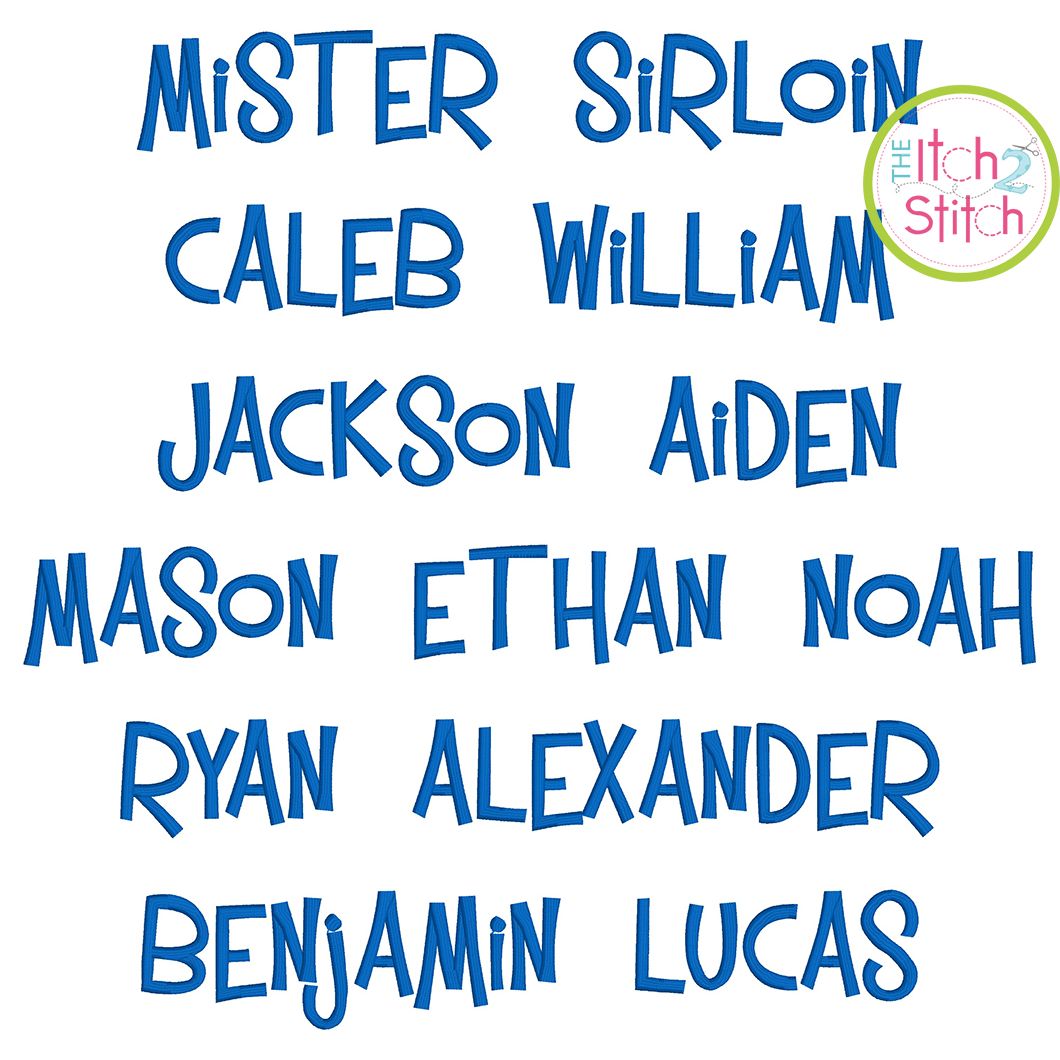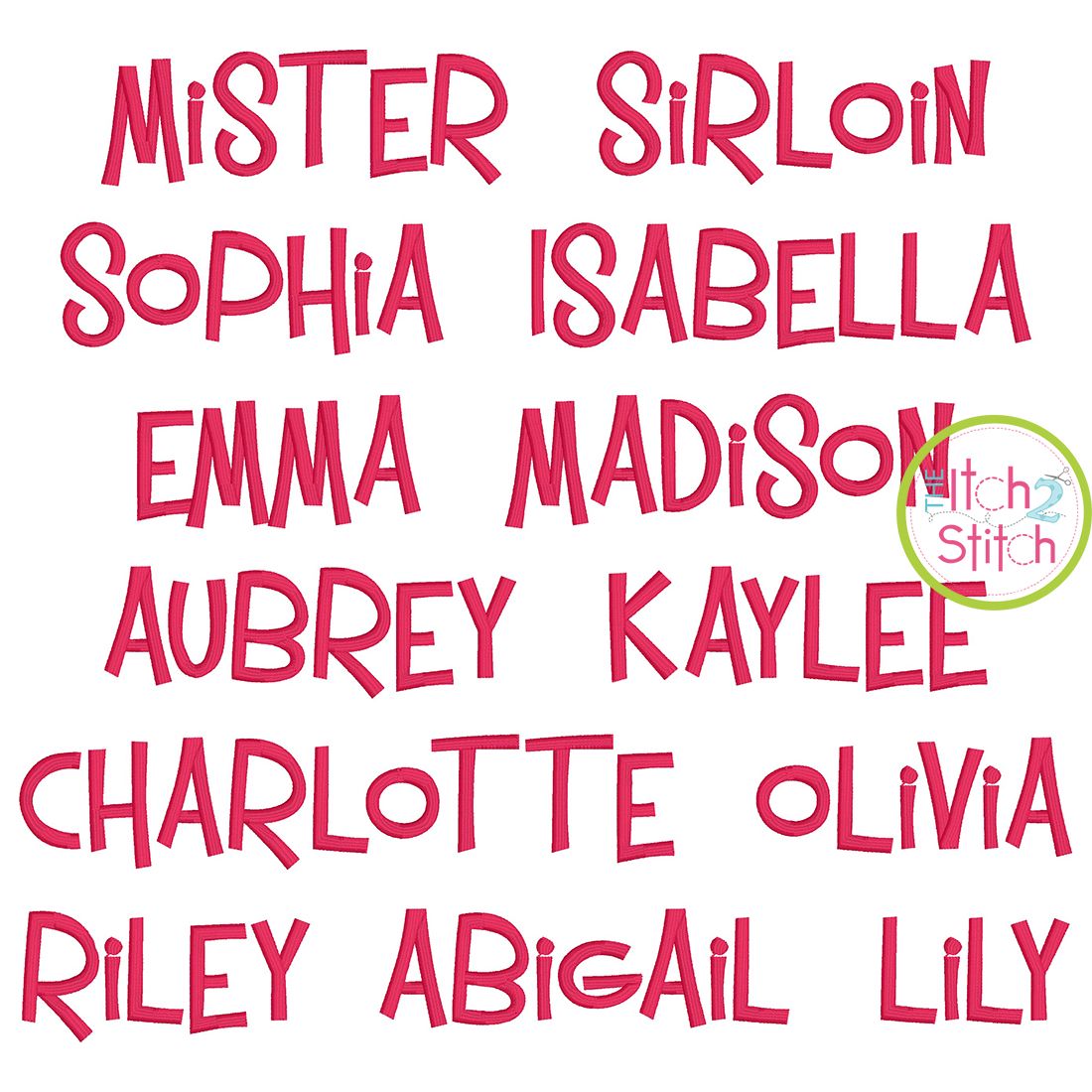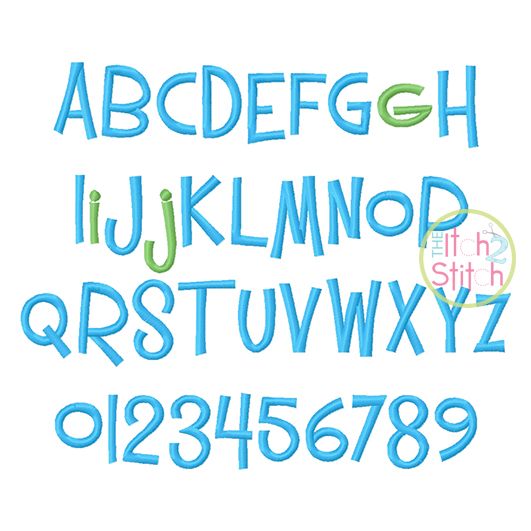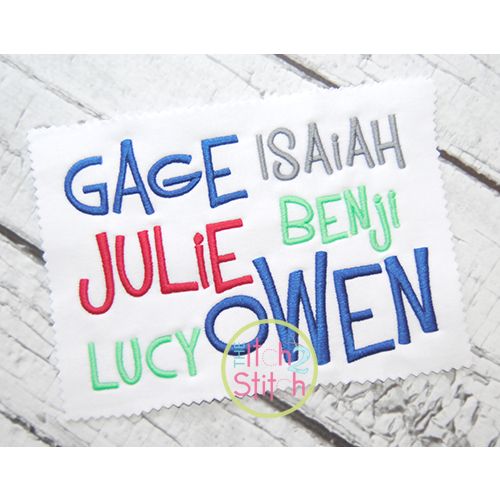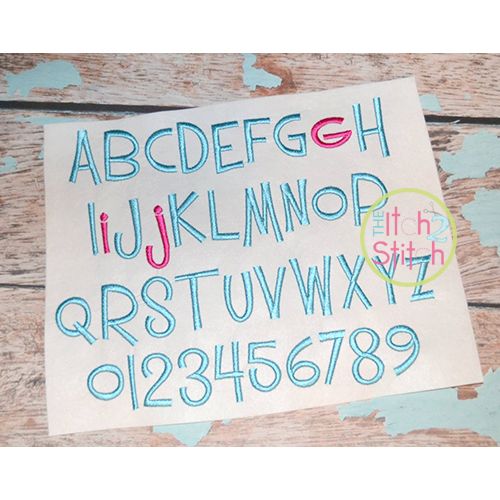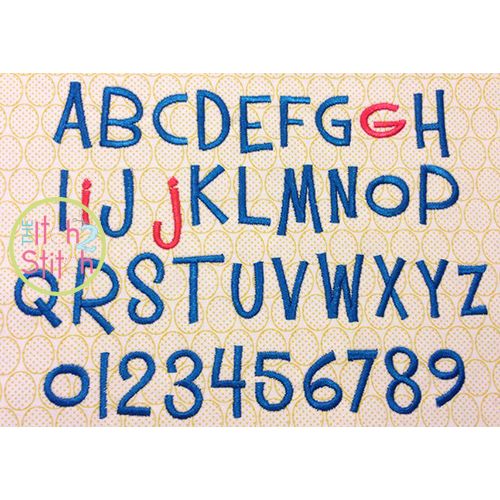
Mister Sirloin Satin Stitch Embroidery Font
You will receive all Aa-Zz letters and numbers (62 files) in three sizes. Please note however in this font only the letters g, i and j have significant differences between the upper and lowercase letters.